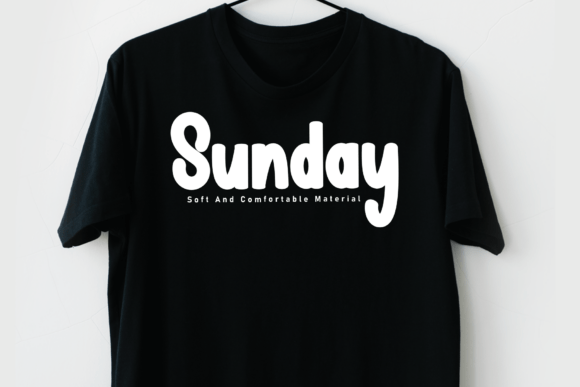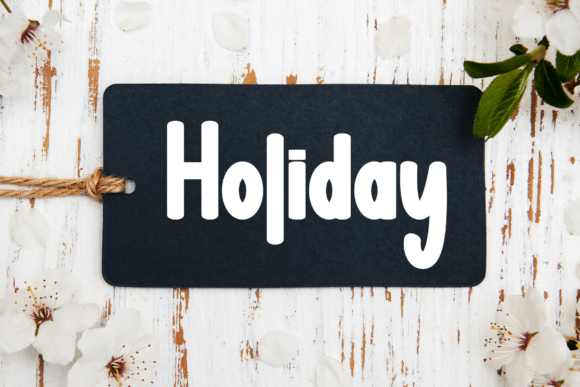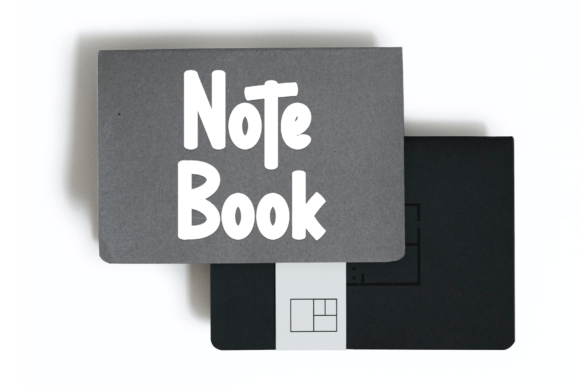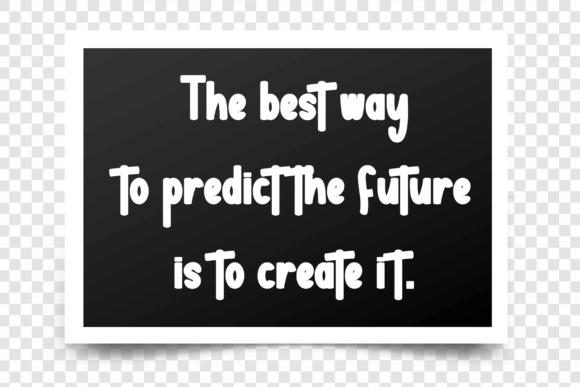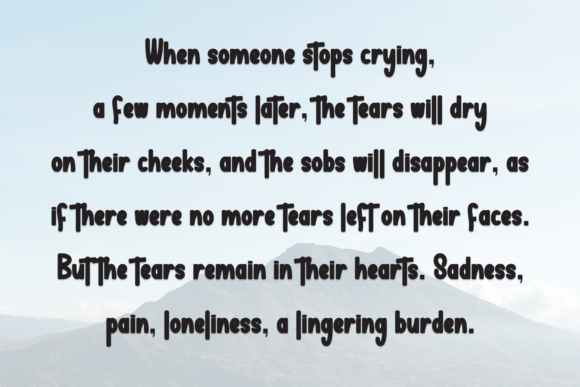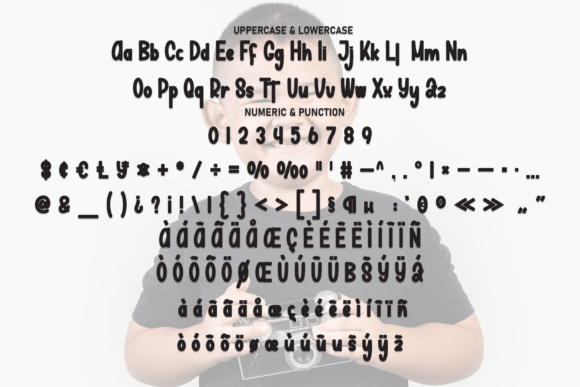
Where Creativity Meets Whimsy: Unleashing the Magic of Cuteboy Font
Have you ever found yourself sitting at your desk, staring blankly at a blank page, trying to come up with the perfect design concept? The blank page stares back, taunting you with its emptiness. Suddenly, a spark of inspiration strikes – you envision a handwritten note, penned with love and care, adorned with a dash of playfulness and whimsy. This is where Cuteboy Font comes in, a captivating handwritten display font that embodies the essence of warmth and approachability.
With its spirited character and beguiling flair, Cuteboy Font is the perfect choice for designers seeking to infuse their creative projects with a touch of bespoke charm. Whether it’s a heartfelt wedding invitation, a playful greeting card, or a social media post, this font adds a sprinkle of humor and zest to any design. As a designer, you’ll appreciate the versatility and unique personality of Cuteboy Font, making it an invaluable addition to your design toolkit.
Cuteboy Font Key Features
- Font Family: Cuteboy Font offers a unique and playful family of fonts with multiple styles, including Regular, Bold, Italic, and Bold Italic.
- Size and Resolution: The font is designed for use at medium to large sizes, with optimal legibility at 14-24 points and resolutions of 72-300 DPI.
- Unique Characteristics: Cuteboy Font features rounded shapes, gentle curves, and a subtle texture, giving it a soft and endearing appearance.
Cuteboy Font Review
Overall, I’m impressed with Cuteboy Font. The designer has successfully captured a playful, youthful vibe that’s perfect for kid-friendly projects or anything that needs a dash of whimsy.
- The font’s rounded edges and soft curves create a friendly atmosphere that’s hard to resist.
- The Cuteboy Font has a wide range of glyph sets, making it a great choice for various languages and character sets.
- The font’s bold and regular weights offer versatility for different design applications.
- The designer has also included ligatures and alternate characters, which is a nice touch for designers who want to add an extra layer of personality to their designs.
- The font may not be suitable for formal or professional projects due to its playful nature.
- The bold weight can feel a bit too bold at larger font sizes, so designers may need to adjust the size or use a custom solution.
- The font’s unique style may not appeal to designers who prefer more traditional or serif fonts.
Overall, I think Cuteboy Font is a great addition to any designer’s toolkit. While it may not be perfect for every project, its playful charm and versatility make it a great choice for designers who want to add a little fun to their designs.
The Cuteboy Font is perfect for creating playful and whimsical designs. Some common use cases include:
- Children’s party invitations
- Food and drink labels
- Stationery and greeting cards
- Branding and logo designs